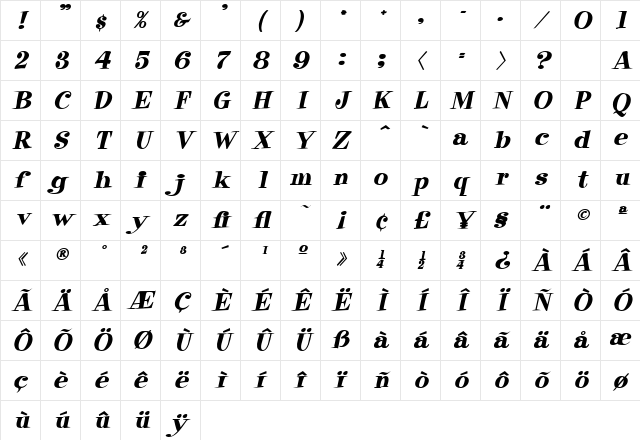
Complete Raskin HeavyItalic glyph index. Displaying only characters natively supported by Raskin HeavyItalic font.
Raskin is a composed and adaptable typeface that performs quietly and consistently across a wide range of design contexts. The slanted form adds forward momentum and visual energy.
Pro Tip: Use Raskin for emphasis, pull quotes, and subheadings where its slanted energy can add rhythm to the layout.